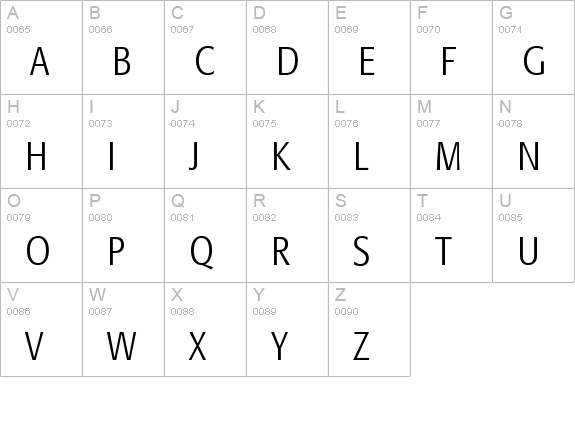
Formata Condensed BQ Light is a refined, elegant, condensed-width variant in the Formata typeface family \xE2\x80\x94 well suited to elegant body text, refined sub-headings, and luxury branding.
Formata Condensed BQ Light font is a sleek and modern typeface that exudes elegance and sophistication. With its clean lines and minimalistic design, this font is perfect for creating a professional and polished look in your projects. The light weight of the font adds a touch of subtlety and refinement, making it ideal for use in a variety of design applications. And the best part? Formata Condensed BQ Light font is available for free download at FontsMarket.com. This means you can easily access this stunning font and use it in your projects without any cost. Don't miss out on this amazing opportunity to enhance your designs with the beauty and versatility of Formata Condensed BQ Light font. Download it today and elevate your creative work to the next level.